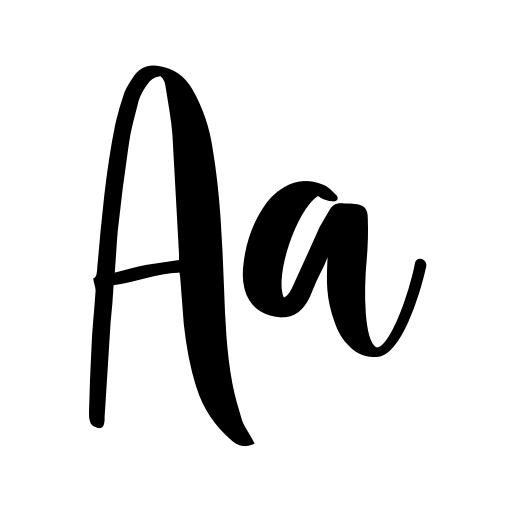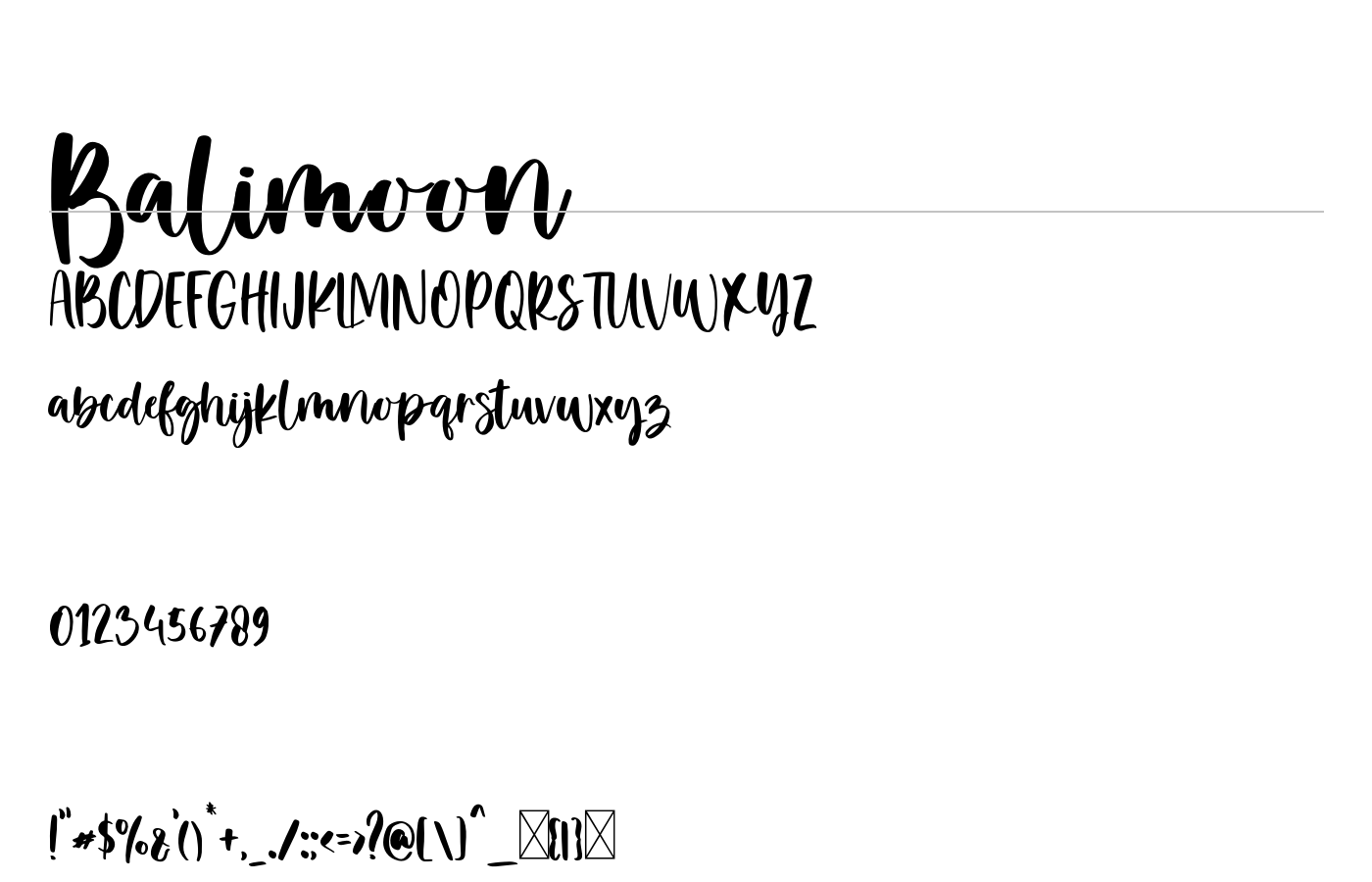
Balimoon is a lively and modern script font with a hand-lettered feel, featuring smooth, flowing strokes and a casual yet stylish vibe. Its bold, rounded letterforms paired with a natural, brush-like texture make it perfect for creative branding, invitations, and playful headlines that need a personal touch. This font works wonderfully in contexts where a welcoming, artistic, and contemporary impression is desired.
Balimoon Font
About Balimoon Font